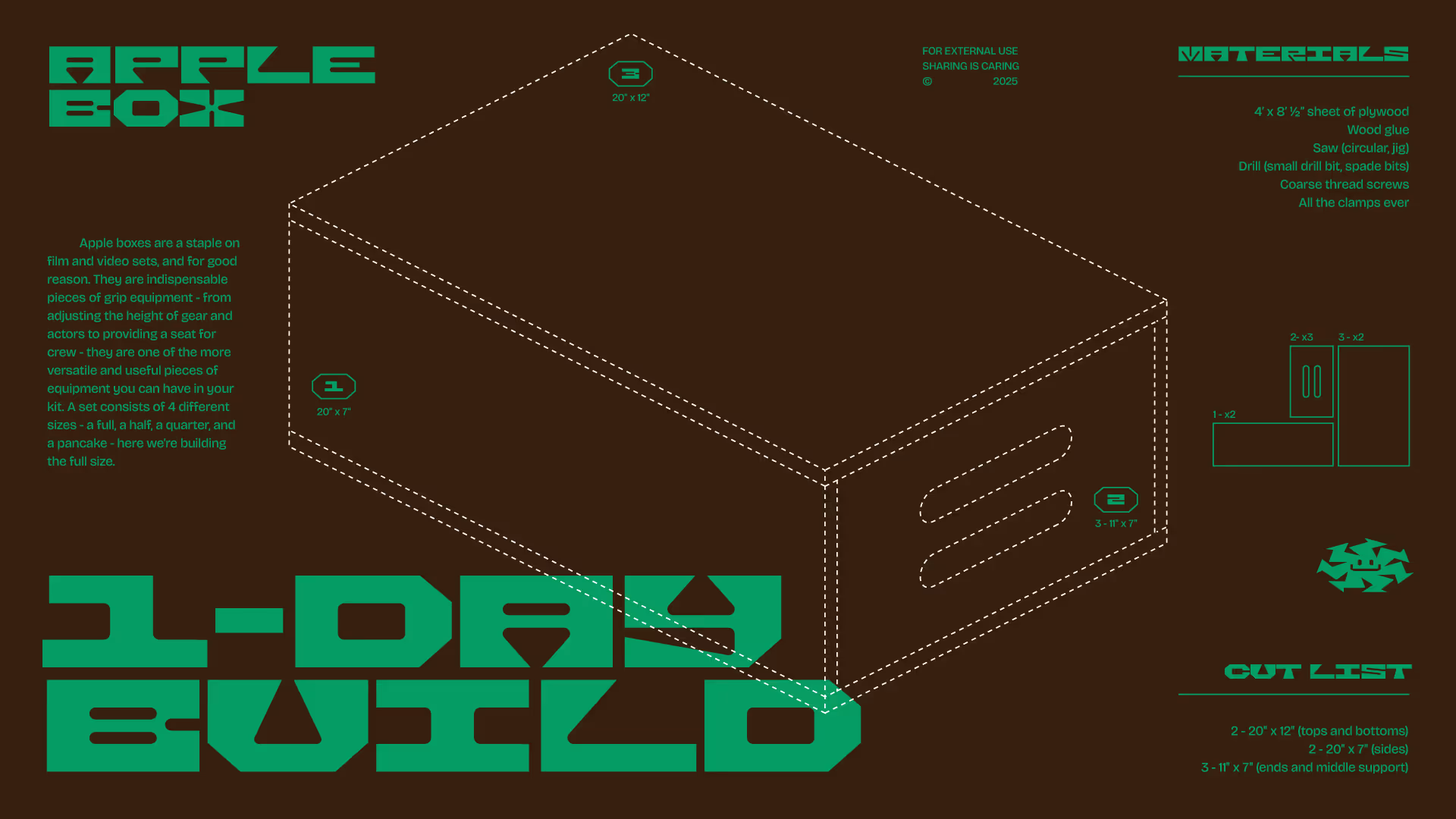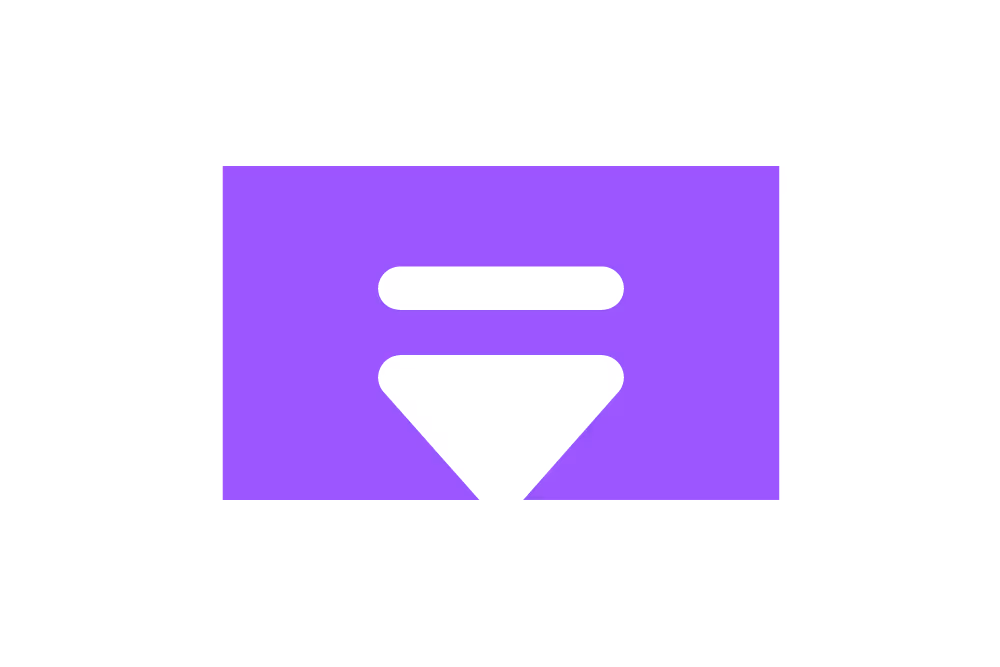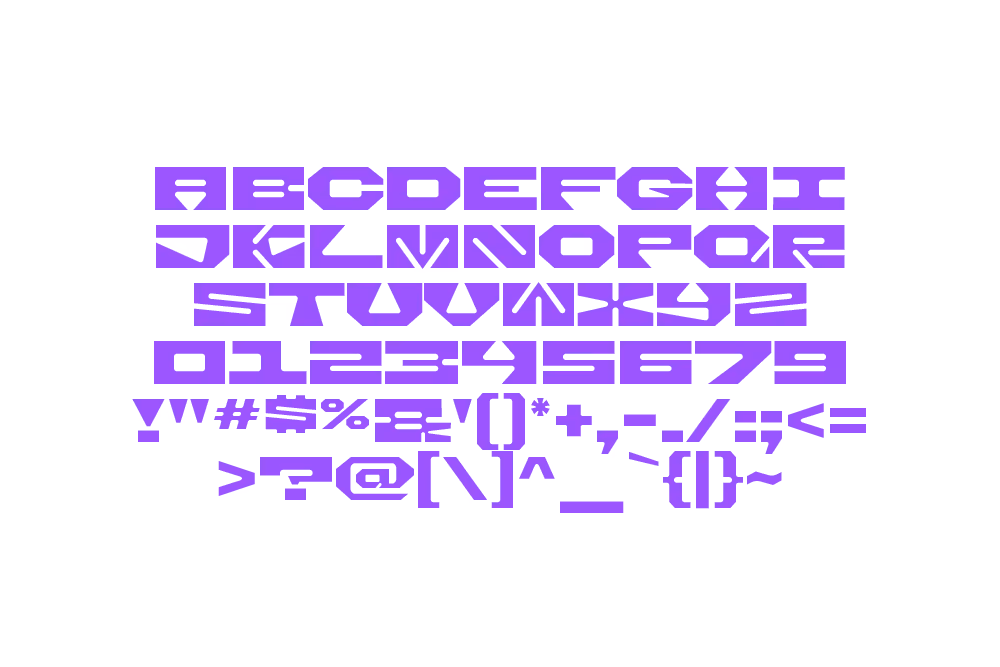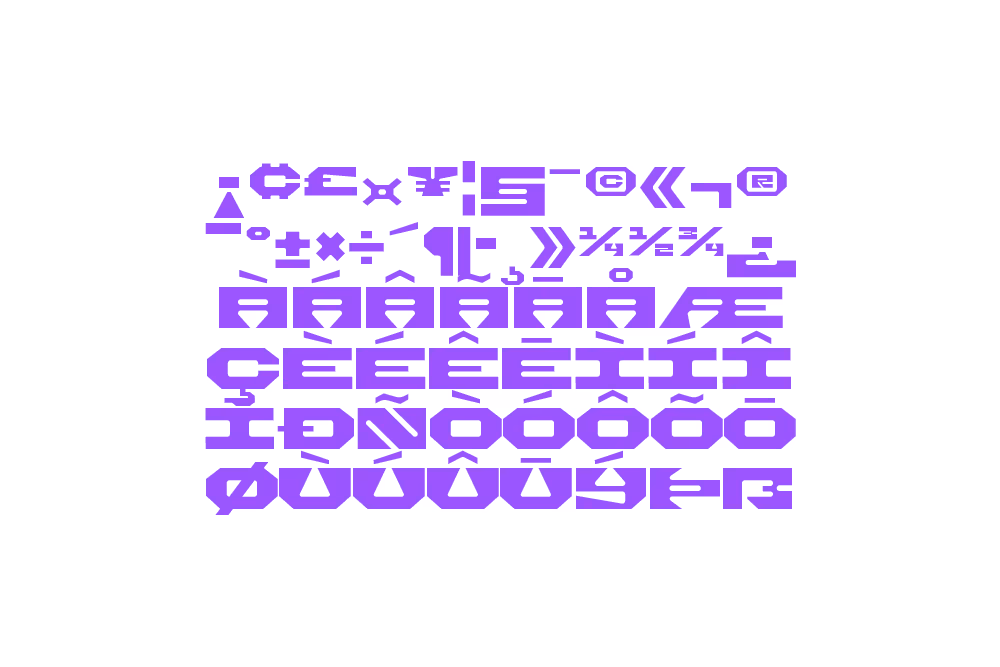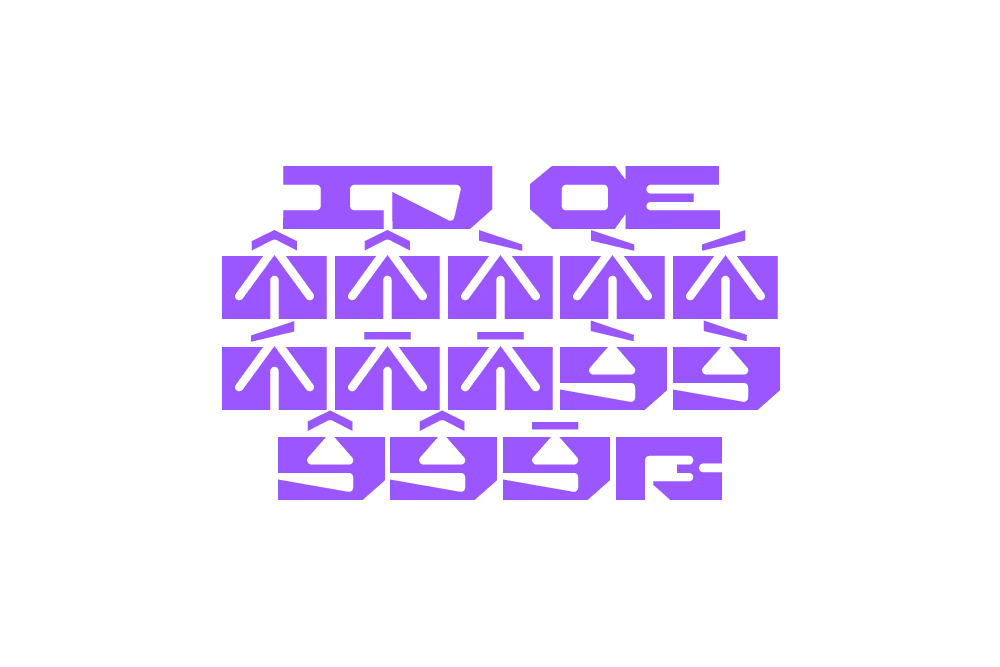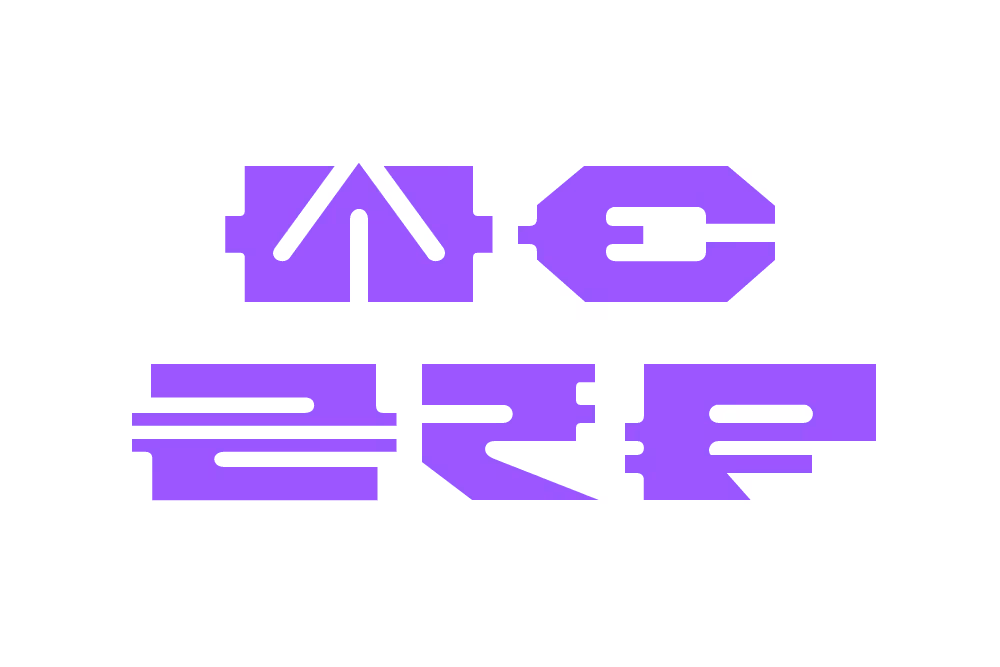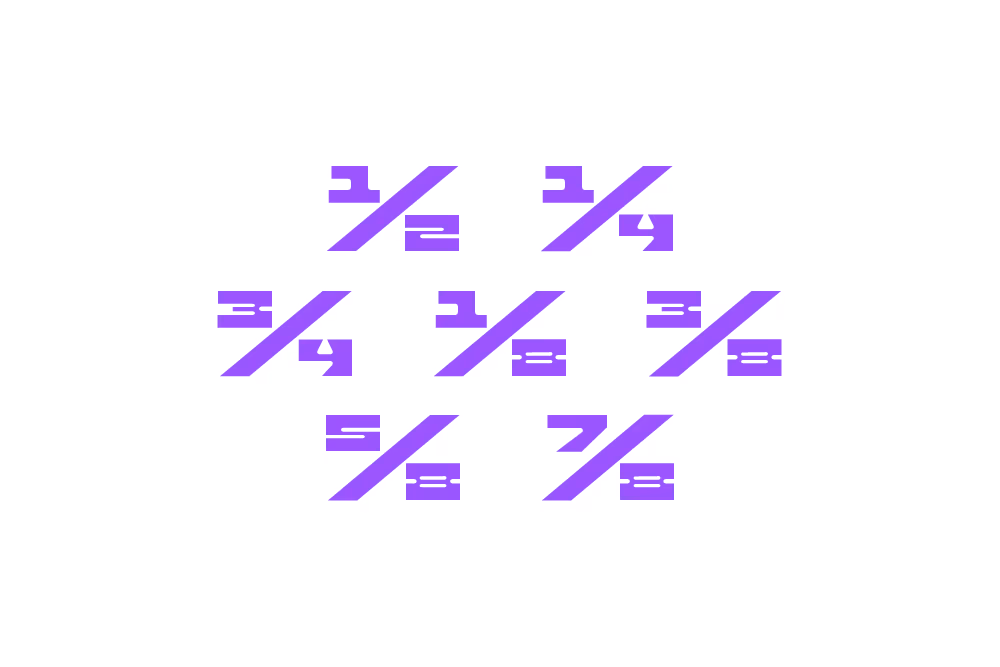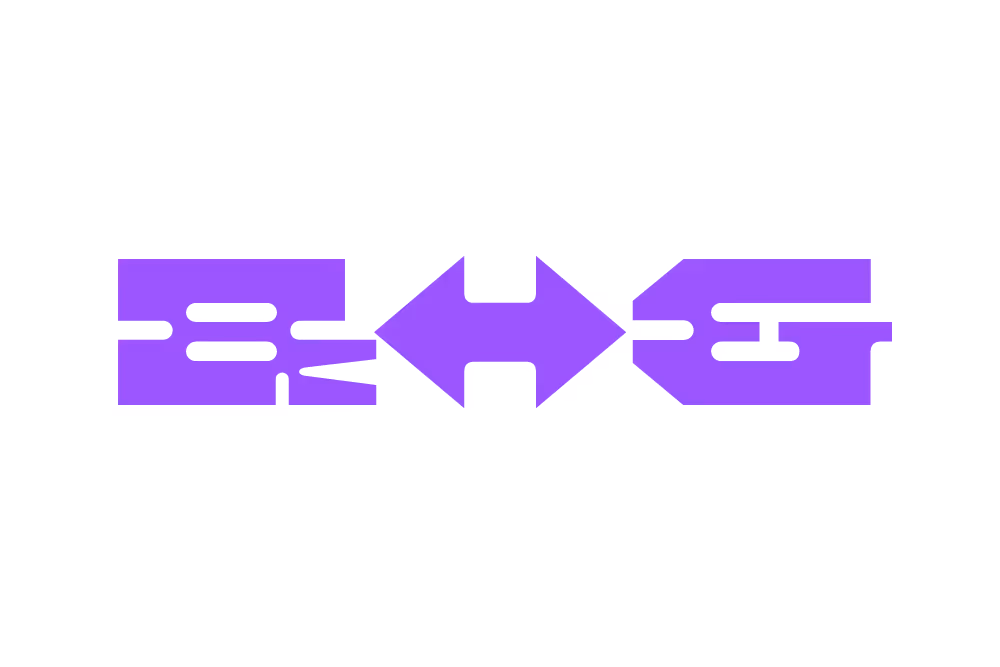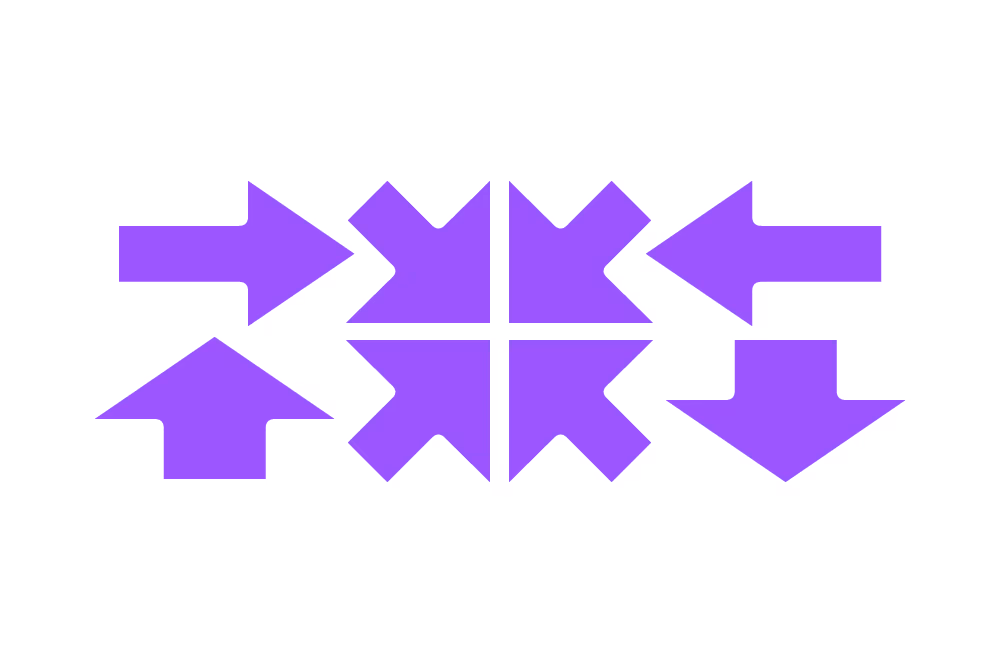
I got into woodworking a few years ago and one of the first things I made was an apple box; an equipment mainstay in film and photography production. It's unassuming and simple (it's literally just a box), but a true swiss army knife. Our box gets used by my wife on photo shoots; by our toddler as storage for whatever tiny object she can drop into it; and by me as inspiration for silly display fonts.
I'm Workin' Here
Apple Box's negative spaces are inspired by the cuts, dovetails, and bowtie shapes found in woodworking. Guaranteed to keep your layouts looking sharp.
20 NY COMpressed
20 NY CONDensed
12 CHI EXTended
8 LA EXPanded
4 ½ LA extra EXPanded
light weight